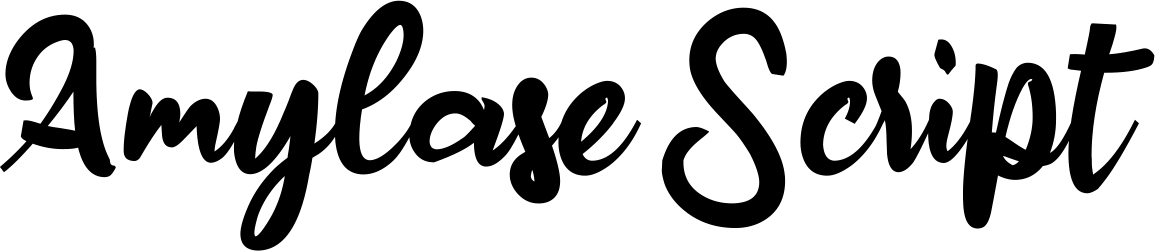
A Amylase Script Font
A Amylase Script has an artistic vibe and, as a brush font, effectively conveys an elegant impression. You can use this font to create a casual and stylish design. A Amylase Script can be a good choice for advertising, logo design, poster design, or any other imaginative context. Don’t miss similar brush fonts on our website.